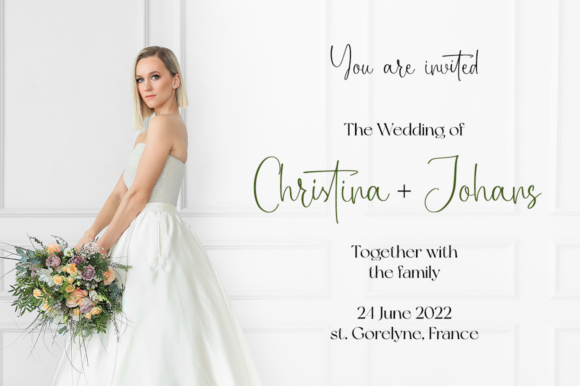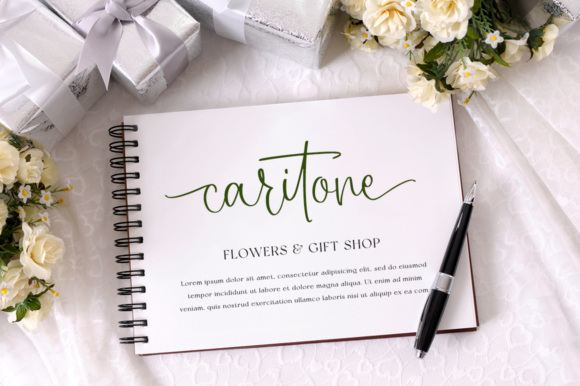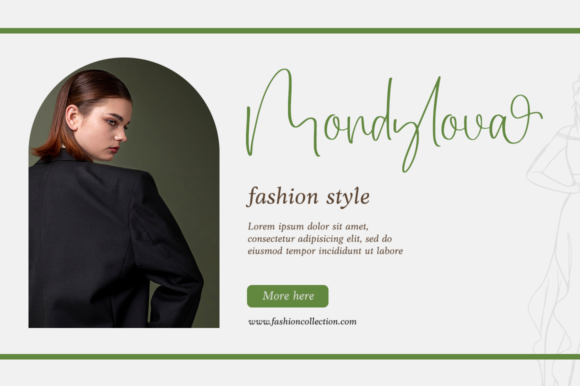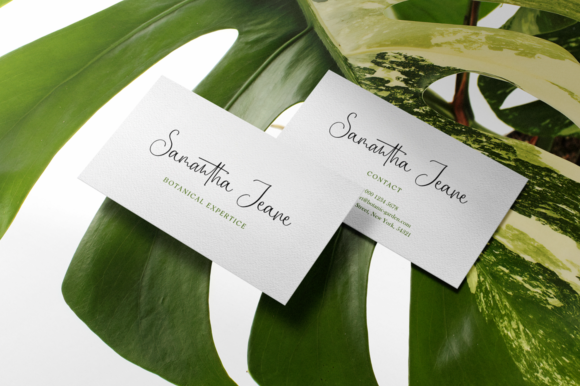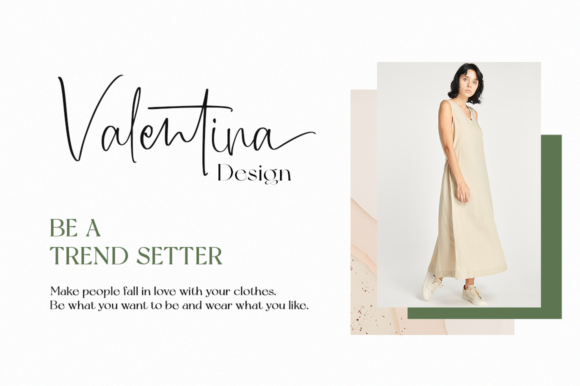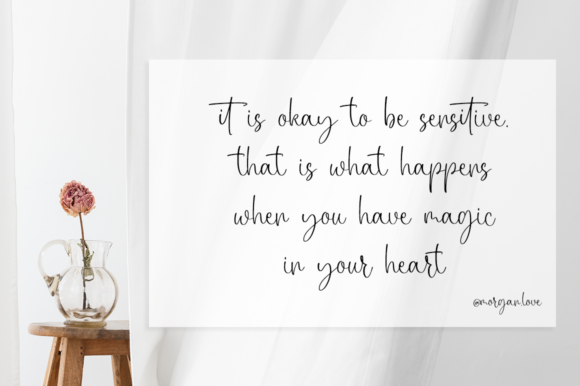
Introducing Caristian Font: Elevate Your Designs with Elegance and Sophistication
In the world of typography, a font can make or break a design. For designers and crafters seeking to add a touch of elegance and distinctiveness to their projects, Caristian Font is an exceptional choice. This beautiful, handwritten font is perfect for creating stunning wedding invitations, thank you cards, quotes, greeting cards, logos, business cards, and more.
The Beauty of Caristian Font
Caristian Font is an elegant handwritten font that exudes sophistication and style. Its gorgeous and distinct appearance makes it ideal for designs that require a customized touch. Whether you’re working on a wedding invitation, a logo, or a business card, Caristian Font is sure to impress.
One of the standout features of Caristian Font is its versatility. It can be used in a variety of design applications, from formal events to everyday branding. The font’s elegant appearance ensures that it will complement any design, making it a valuable addition to your typography collection.
Caristian Font is PUA (Private Use Area) encoded, which means that you can access all of the glyphs and swashes with ease. This encoding allows you to unlock the full potential of the font, giving you the flexibility to create unique and customized designs.
With PUA encoding, you can access a wide range of glyphs and swashes, including ligatures, alternates, and ornaments. This means that you can add an extra layer of elegance and sophistication to your designs, making them truly stand out.
Caristian Font is a perfect choice for designers and crafters who want to add a touch of elegance and sophistication to their projects. Whether you’re working on a commercial design or a personal craft project, this font is sure to impress.
For designers, Caristian Font offers a wide range of creative possibilities. You can use it to create stunning logos, business cards, and branding materials that will help your clients stand out. For crafters, this font is perfect for creating beautiful handmade cards, invitations, and other paper crafts.
Tips for Using Caristian Font
To get the most out of Caristian Font, here are a few tips:
- Use it for formal events: Caristian Font is perfect for wedding invitations, formal galas, and other special events.
- Experiment with glyphs and swashes: With PUA encoding, you can access a wide range of glyphs and swashes to add an extra layer of elegance to your designs.
- Pair it with other fonts: Caristian Font works beautifully with other fonts, so don’t be afraid to experiment with different pairings.
- Use it for branding: Caristian Font is perfect for creating stunning logos, business cards, and branding materials.
Caristian Font is an exceptional choice for designers and crafters seeking to add a touch of elegance and sophistication to their projects. With its gorgeous and distinct appearance, PUA encoding, and versatility, this font is sure to become a valuable addition to your typography collection.